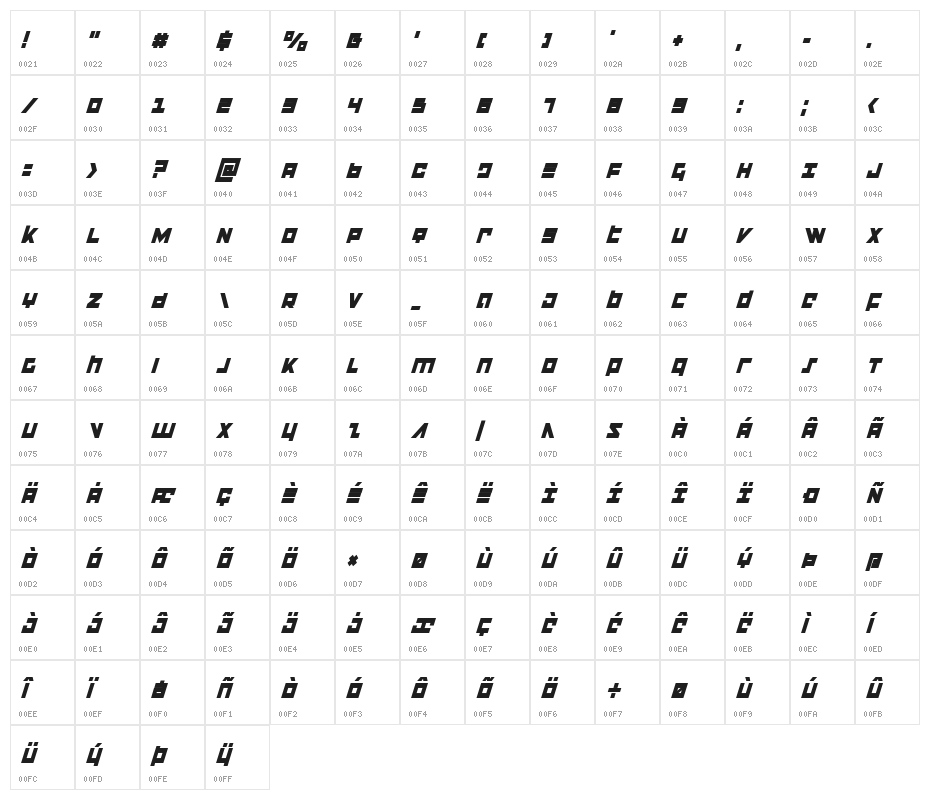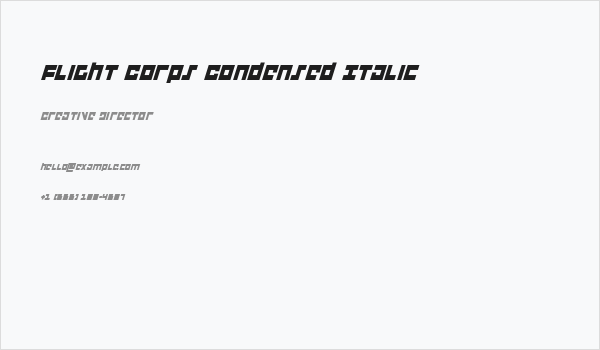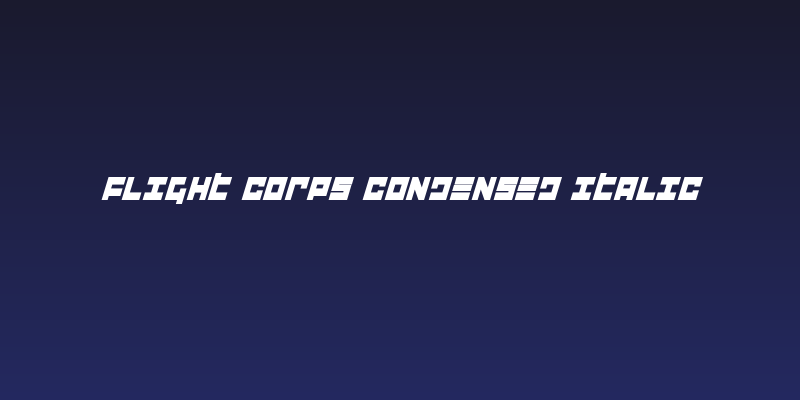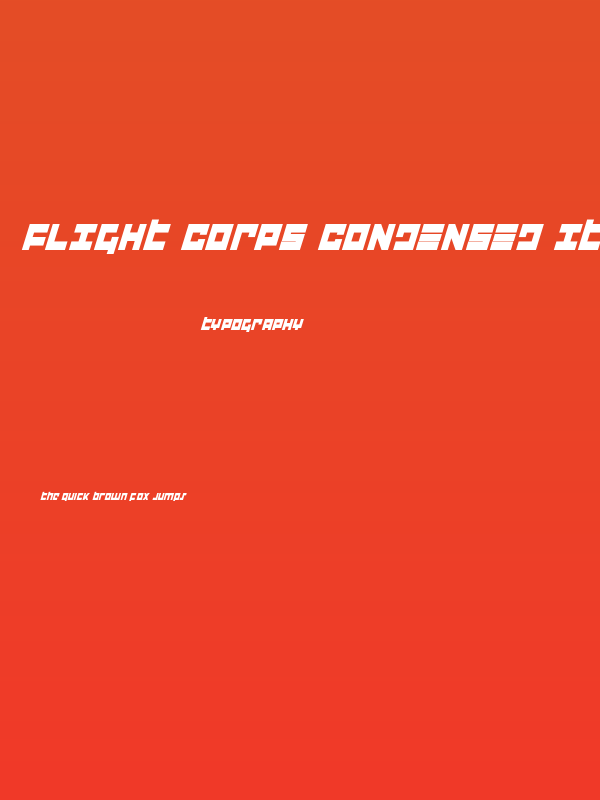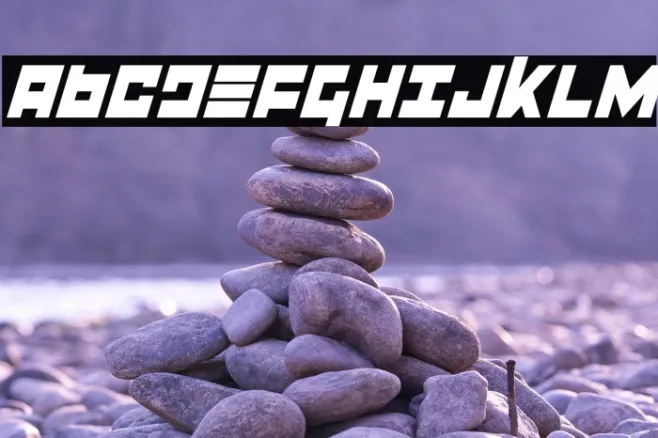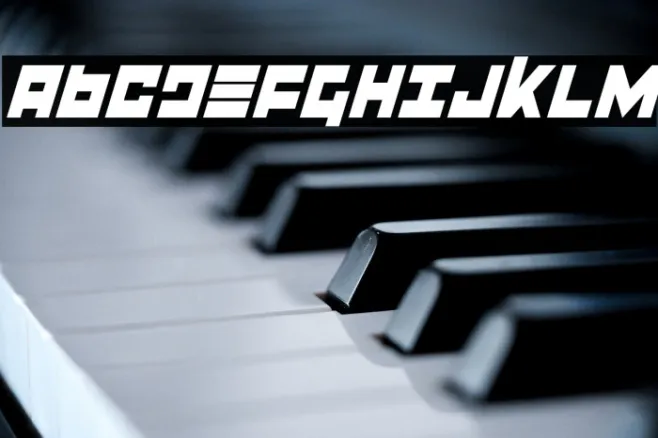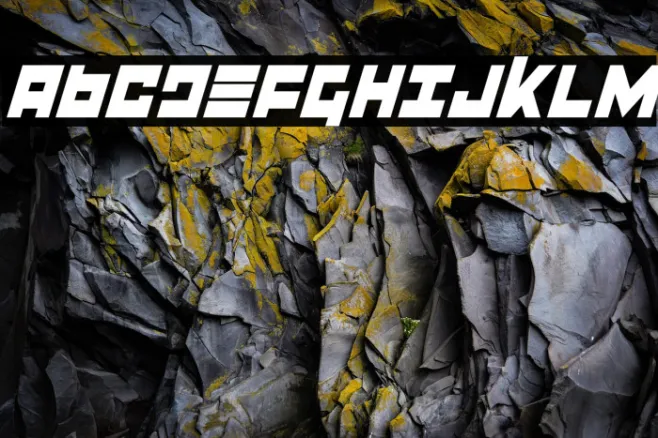
Flight Corps Condensed Italic Font
Flight Corps Condensed Italic Description
This font features a bold, angular design with a futuristic and dynamic appearance. The characters are condensed and italicized, giving them a sense of motion and speed. The sharp edges and geometric shapes contribute to a modern and edgy aesthetic. The uppercase and lowercase letters maintain a consistent style, with a strong emphasis on horizontal and diagonal lines. The numbers and special characters follow the same design principles, ensuring uniformity across all elements. This font is highly legible and impactful, making it suitable for attention-grabbing applications.
| Proposed Projects | Ideal for sci-fi themed projects, video game titles, sports branding, and dynamic posters. |